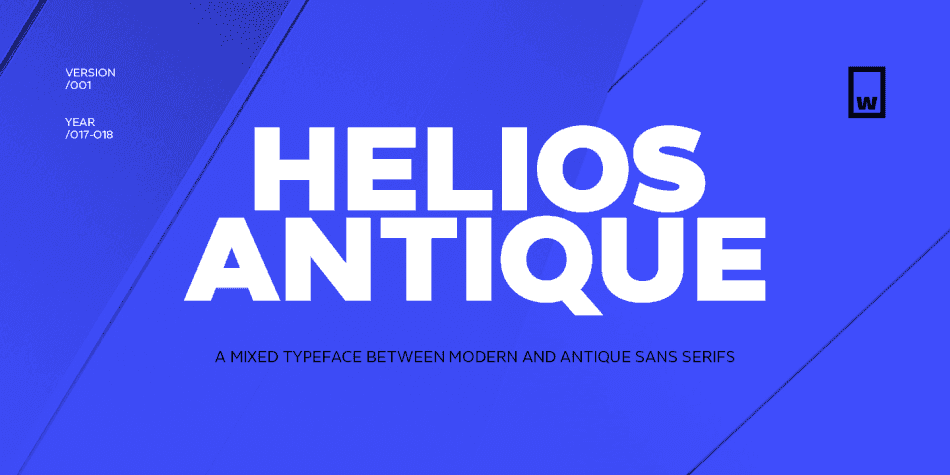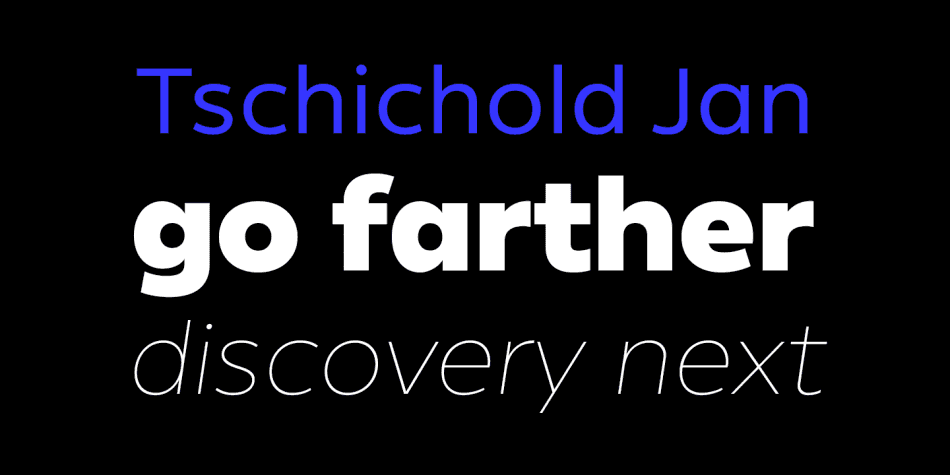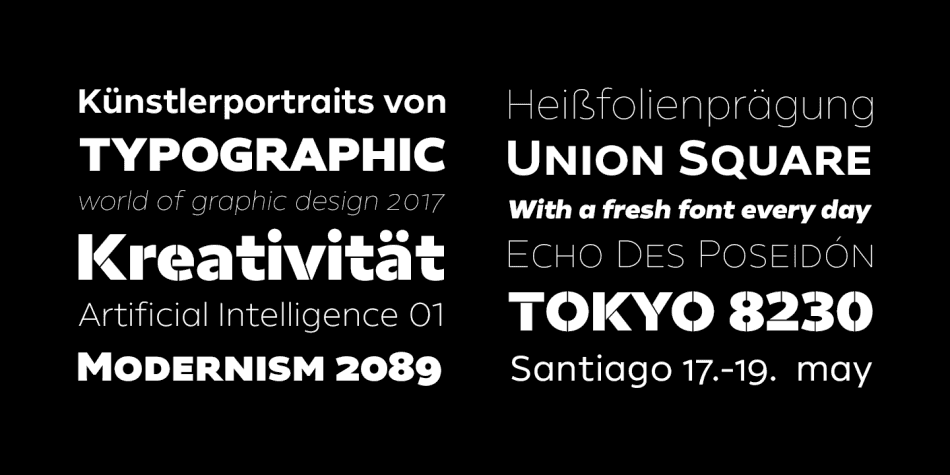
Helios Antique Font Family
Helios Antique Font Family is the result of a blend between early sans serif types and contemporary trends. Its rational layout is larger than original sans fonts for increased impact in its use; terminals of all typefaces have wider openings for easier contrast between blacks and whites of Helios, as well as higher contrast where strokes intersect – this makes reading it much simpler.